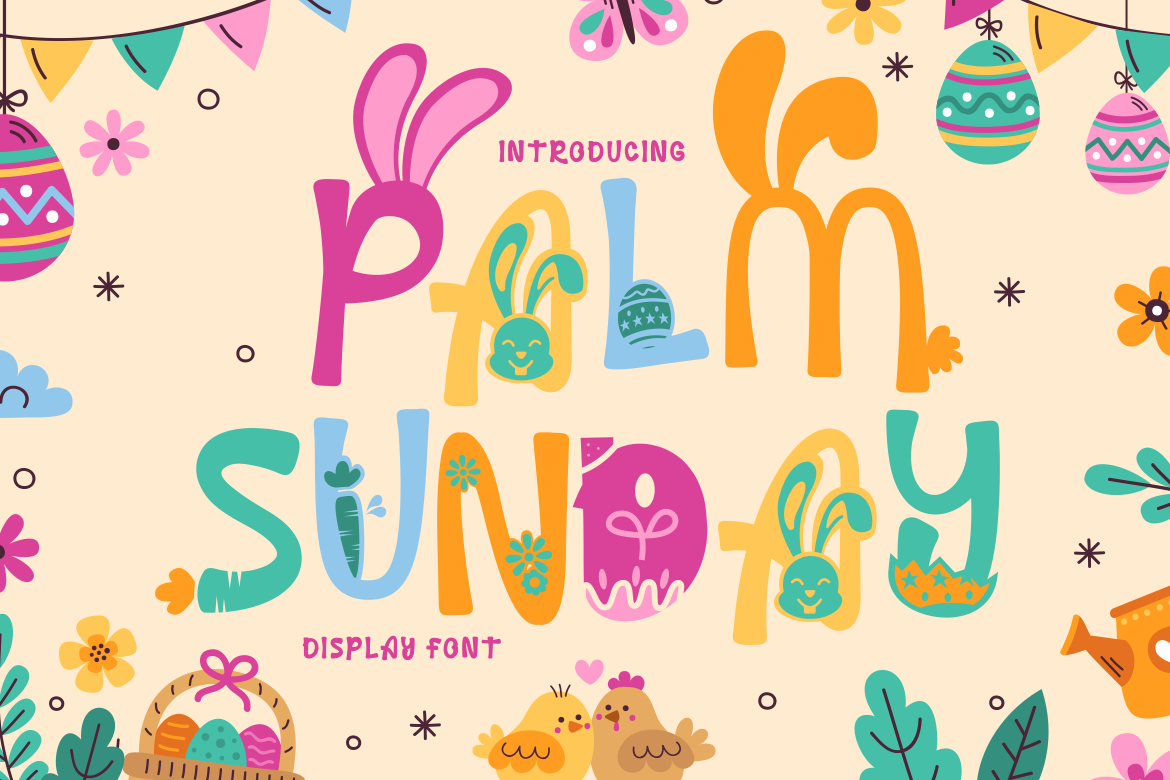
Palm Sunday - Quirky Easter Day Font
Palm Sunday - Quirky Easter Day Theme Font is a unique typeface designed to capture the playful spirit of Easter and Palm Sunday. This font is characterized by its quirky, chaotic, and variable thick-thin letterforms, which add an element of fun and intrigue to your designs. It can be used effectively either on its own or in combination with its ten charming variations.
With ten distinctive variations inspired by Easter day, including eggs, bunnies, carrots, bunny ears, and flowers, Palm Sunday is the ideal choice for projects related to Easter, Pascha, and the joyous celebrations associated with the holiday. It perfectly suits children's themes, crafting projects, and any design that seeks to evoke a sense of fun, playfulness, and a vibrant, colorful aesthetic.
This font can be applied to a variety of projects, including logos, children's themes, crafting, invitations, packaging, posters, titles, businesses, greeting cards, stickers, children's books, magazines, and designs associated with Easter day or Pascha.
With its whimsical and joyful theme, Palm Sunday adds a touch of holiday spirit to your creative work, making it perfect for all things Easter.